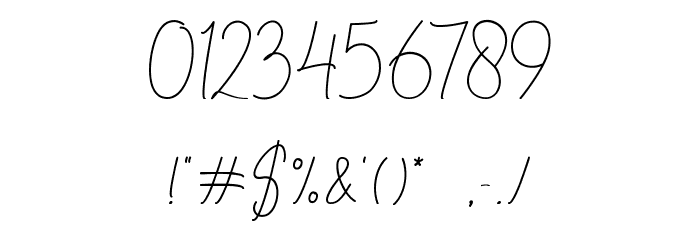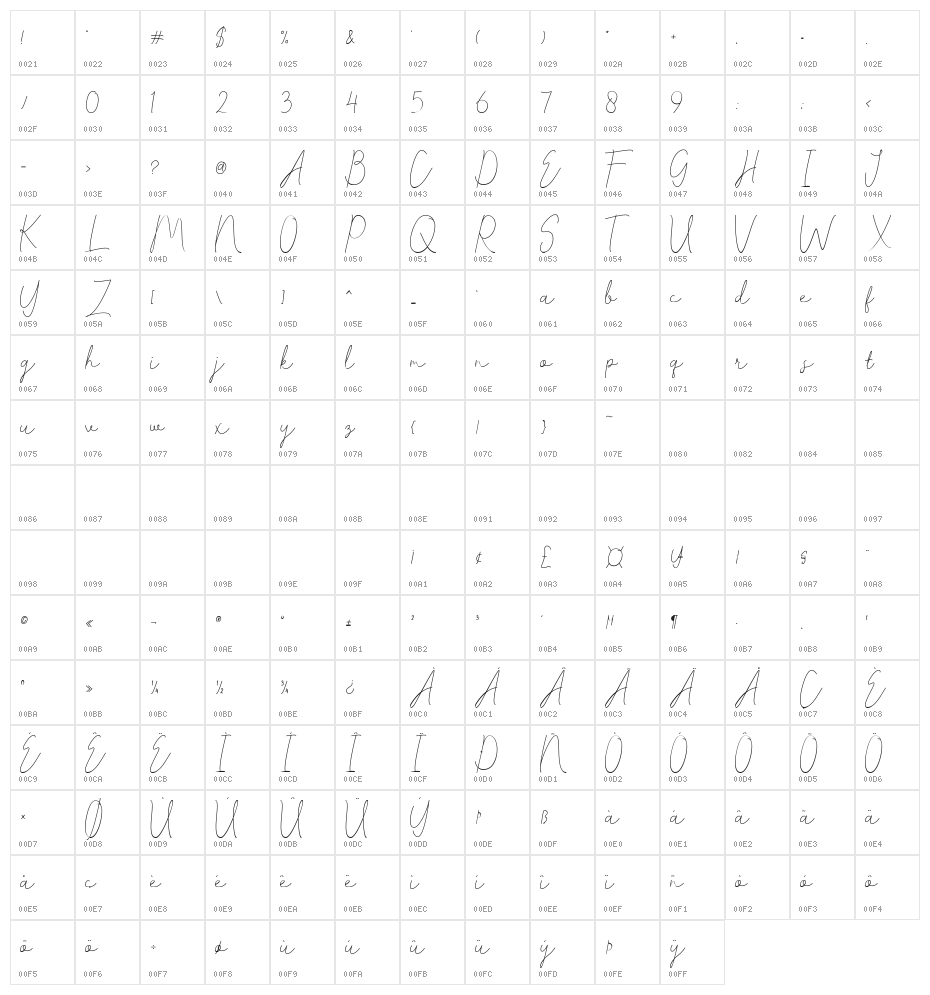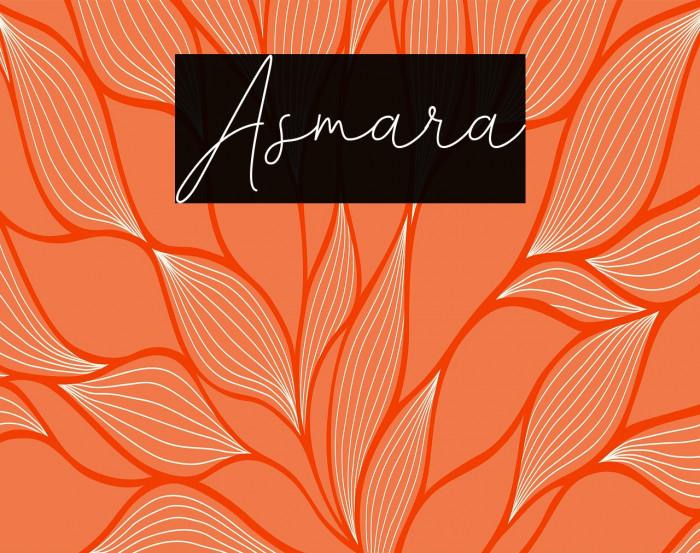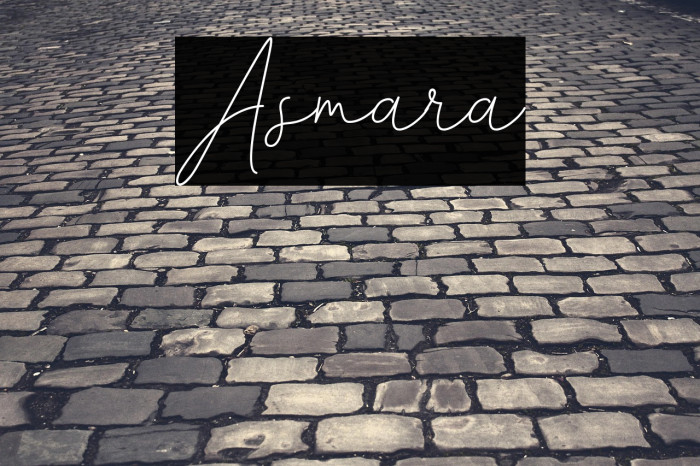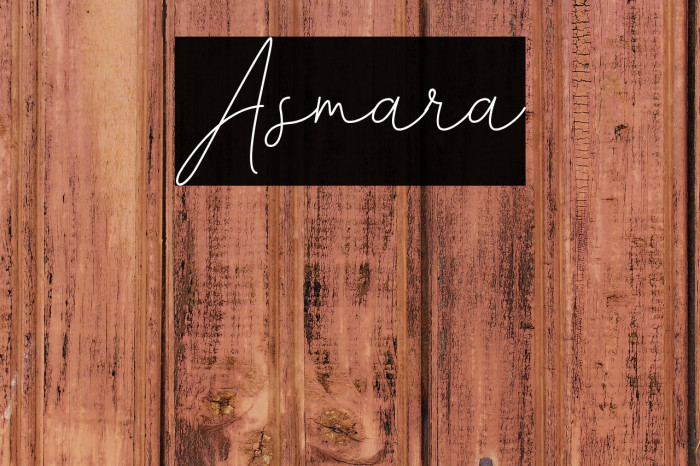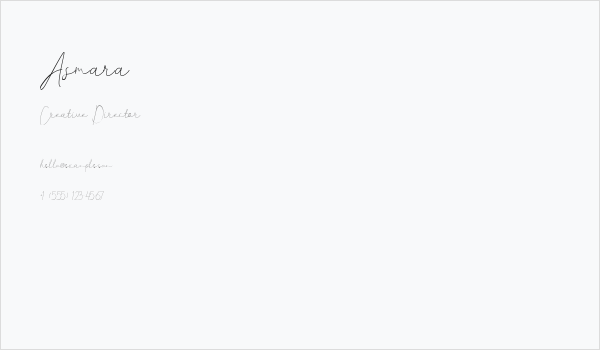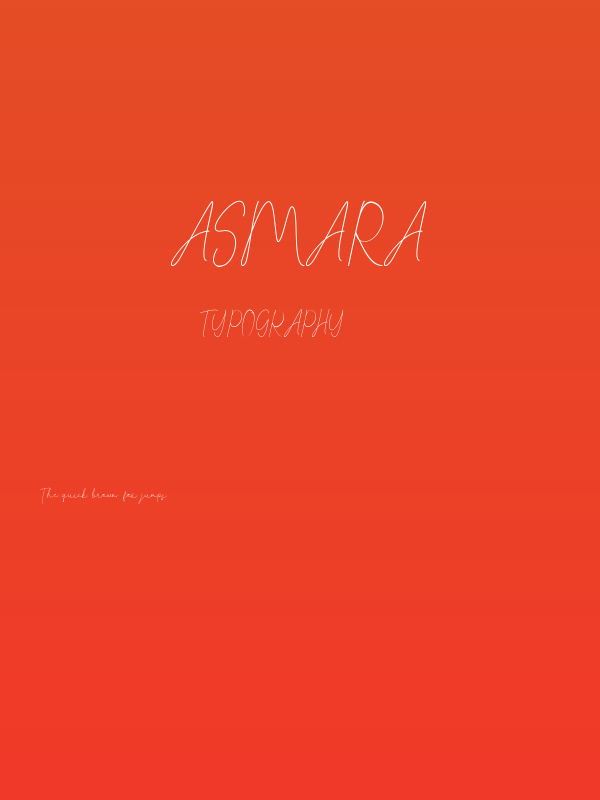
Asmara Font
Asmara Description
This font features an elegant and flowing script style, characterized by its thin, delicate lines and a handwritten appearance. The uppercase letters are tall and slightly slanted, giving a sense of movement and grace. The lowercase letters maintain a consistent flow, with smooth curves and loops that enhance its cursive nature. The numerals are clear and maintain the same thin stroke, ensuring readability while keeping the overall aesthetic. Special characters are seamlessly integrated, maintaining the font's cohesive look. This font exudes a sense of sophistication and is perfect for projects that require a personal touch.
| Proposed Projects | Ideal for wedding invitations, personal branding, greeting cards, and elegant stationery. |